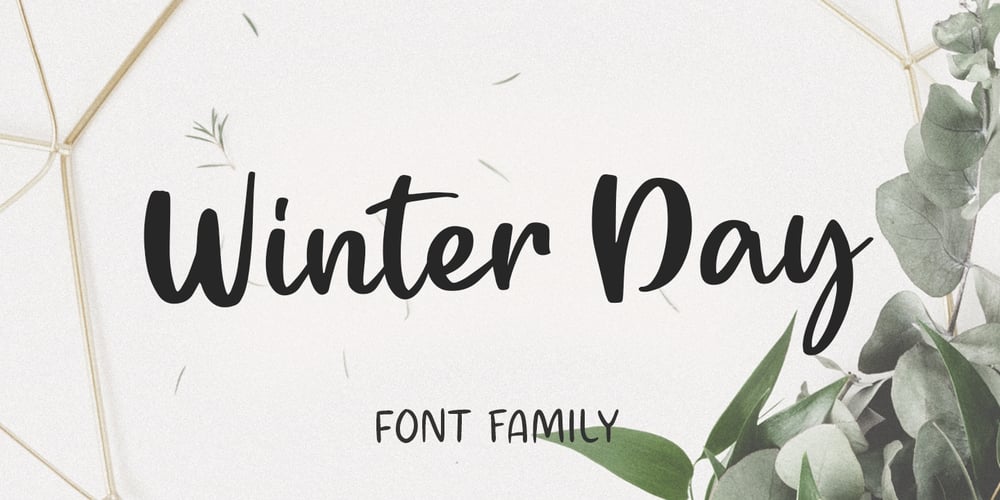
Winter Day Font Family was designed by Pavel Larin and published by Larin Type Co. Winter Day contains 3 styles and family package options. Winter Day is a strong and playful script with a streak and a solid version, as well as a fun handwritten sans serif in a regular and bold style. Inspired by winter beauty and Christmas mood. Fall in love with its charm and take any craft to a new level! Create templates with Winter Day, invitations, book covers, magazines, stationery, children’s books, logo design, emphasize your individuality in the blog and social media and much more.